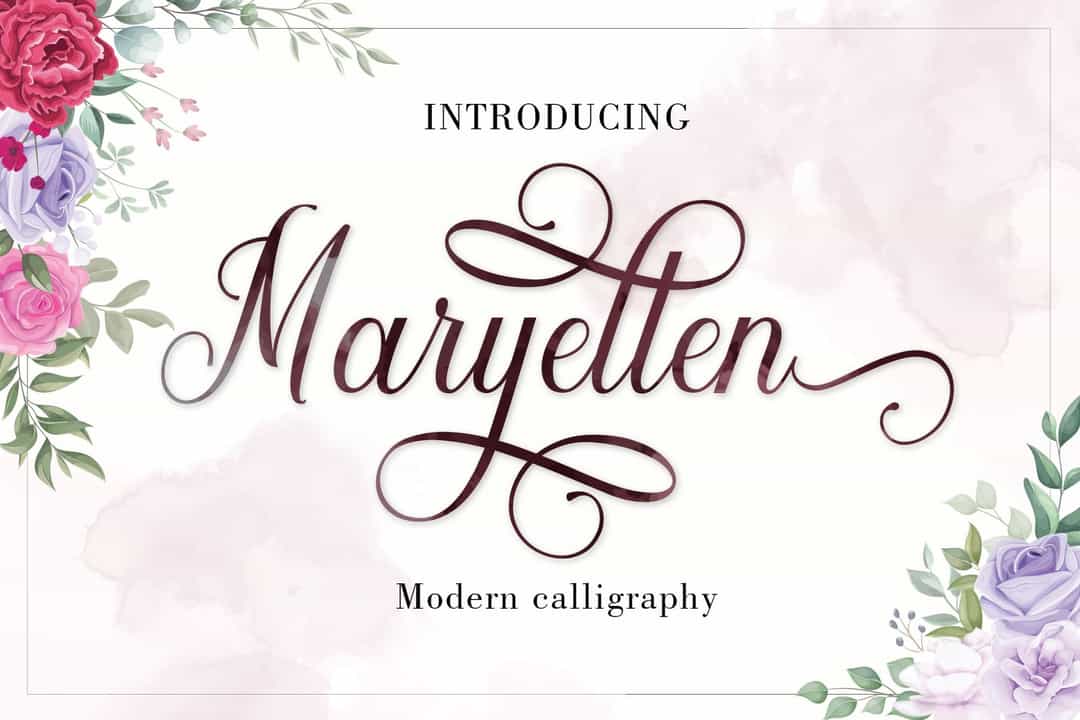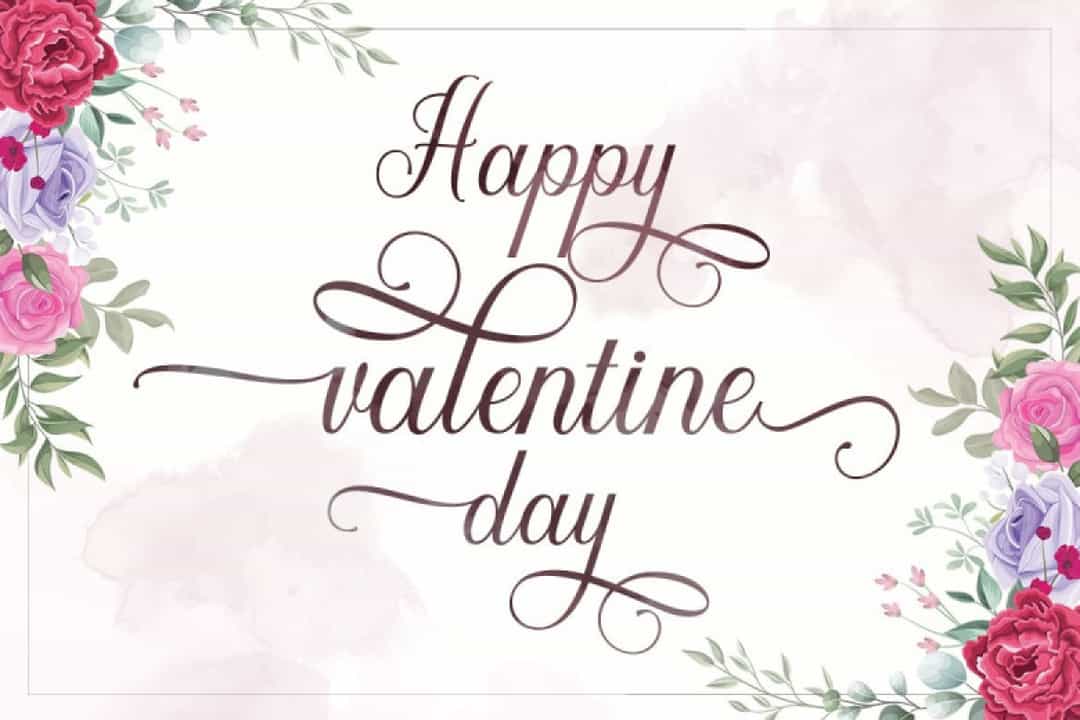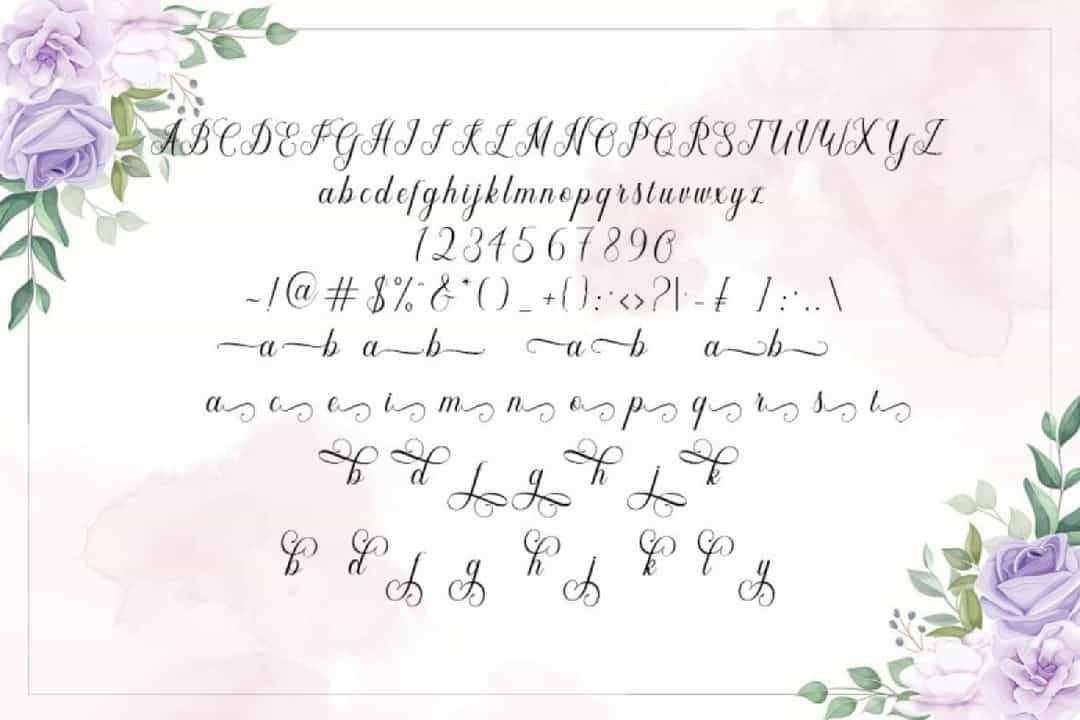
Maryellen Font has a stunning and unique look. This font will give your design projects a luxurious touch! This font has been encoded with PUA, which allows you to access the amazing glyphs & ligatures!